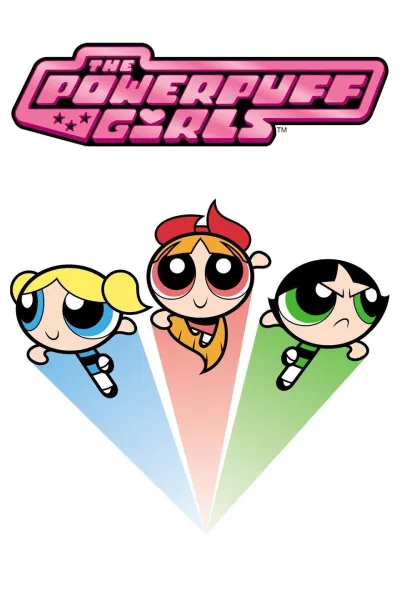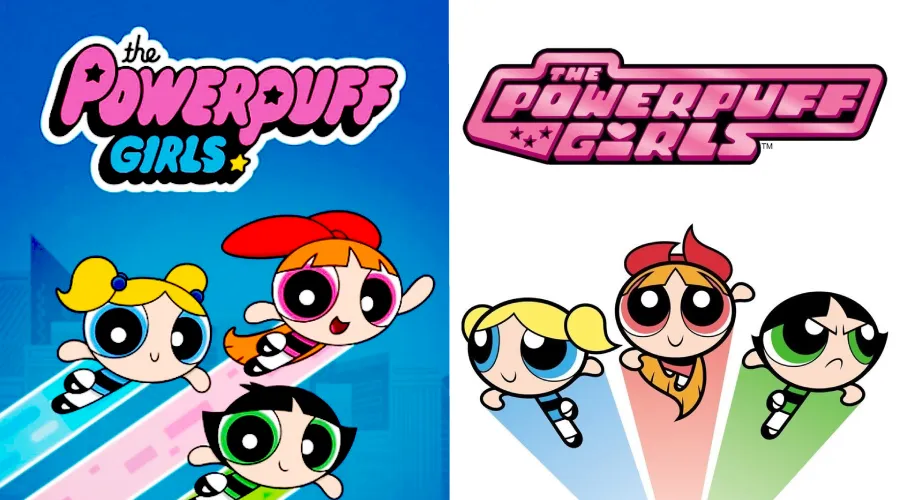
The Powerpuff girls font
Powerpuff Girls Font
The Powerpuff Girls, the beloved animated superhero trio, have captivated audiences for years with their unique blend of action, comedy, and girl power. Now, you can bring a touch of their iconic style to your designs with the Powerpuff Girls Font.
Latest the Powerpuff Girls Logo
Old The Powerpuff Girls Logo
In this article, we will explore fonts that perfectly match the Powerpuff Girls logo and add a touch of sugary sweetness to your projects.
Powtex Font
Powtext Font Character View
This font captures the essence of the Powerpuff Girls Latest Logo with its bold and playful style. It exudes a sense of energy and action, making it a perfect choice for titles and headings.
Powerpuff Font
PowerPuff font Character View
Designed specifically to resemble the Powerpuff Girls Old logo, this font is a faithful recreation of the iconic lettering. It brings nostalgia and familiarity to your designs and is perfect for capturing the essence of the beloved cartoon.
Utonium Font
Utonium Font Character View
Utonium Font is a typeface based on the title logo of the original Powerpuff Girls from Cartoon Network. It was designed by Neale Davidson under Pixel Sagas. It has four styles: regular, bold, italic, and bold-italic. It is free for personal use, but commercial use requires a donation to the designer.
Powerpuff Girls Font
PowerPuff Girls Font Character View
Powerpuff Girls font by Tom White is a funky and groovy font that is inspired by the old animated series The Powerpuff Girls. You can download this font for free.
With the Font, you can infuse your designs with the charm and energy of Blossom, Bubbles, and Buttercup. Whether you’re creating posters, logos, or social media graphics, these fonts offer a variety of styles that perfectly match the Powerpuff Girls logo. So, unleash your creativity, add a dash of sugar, spice, and everything nice, and let these Fonts take your designs to new heights.